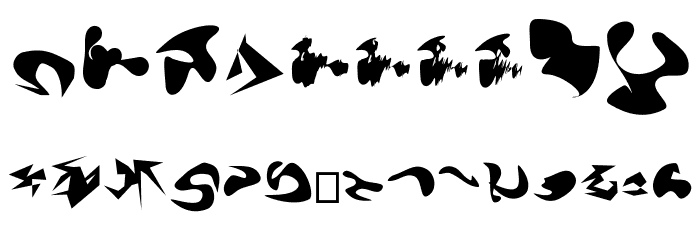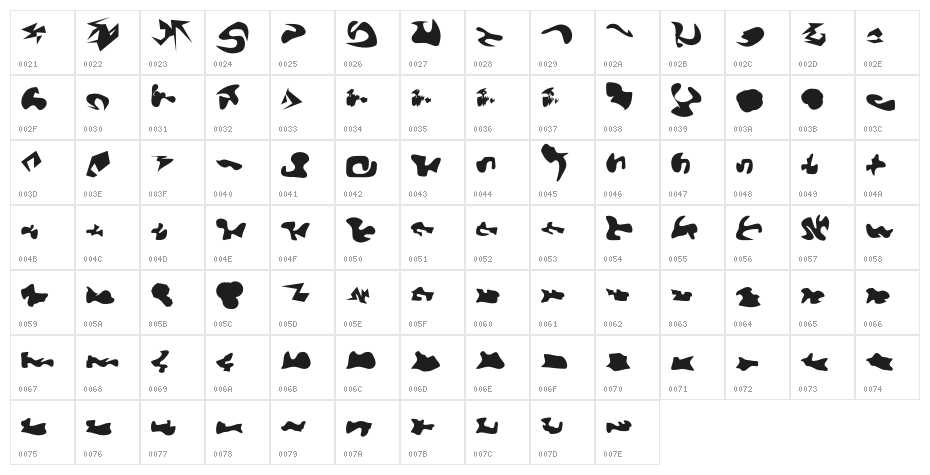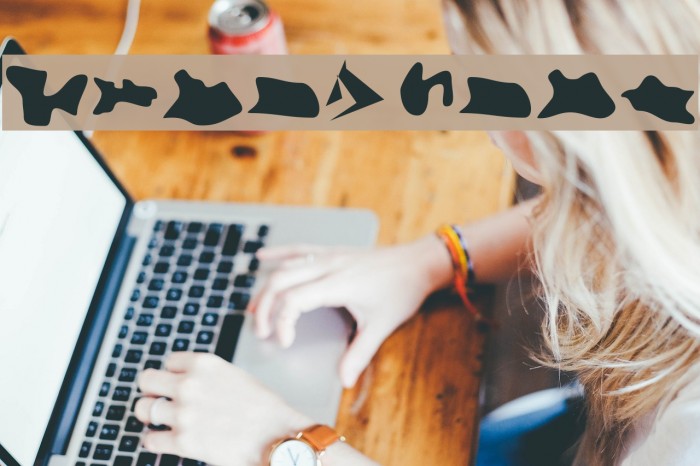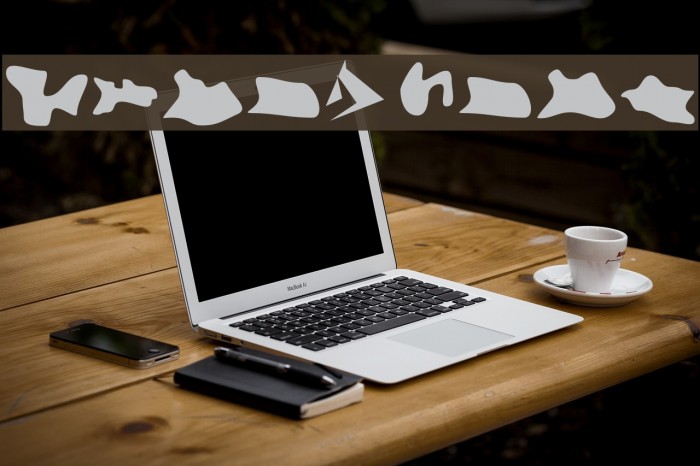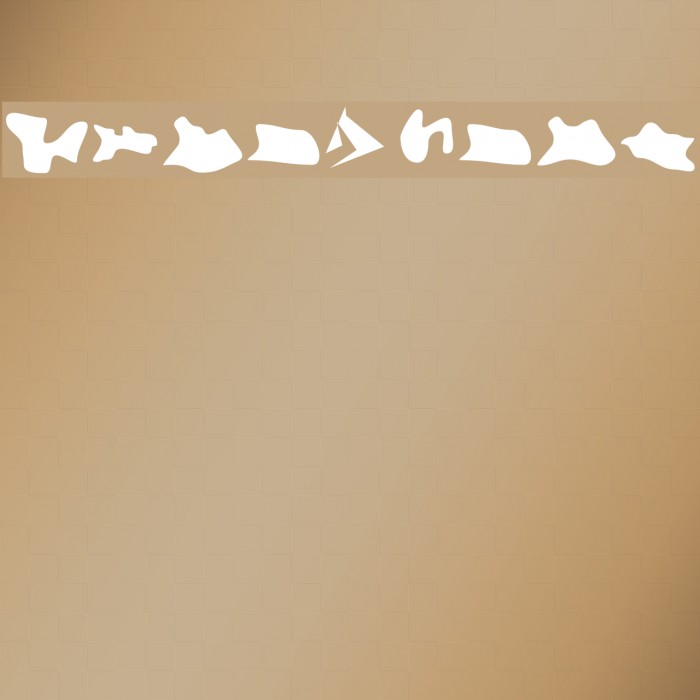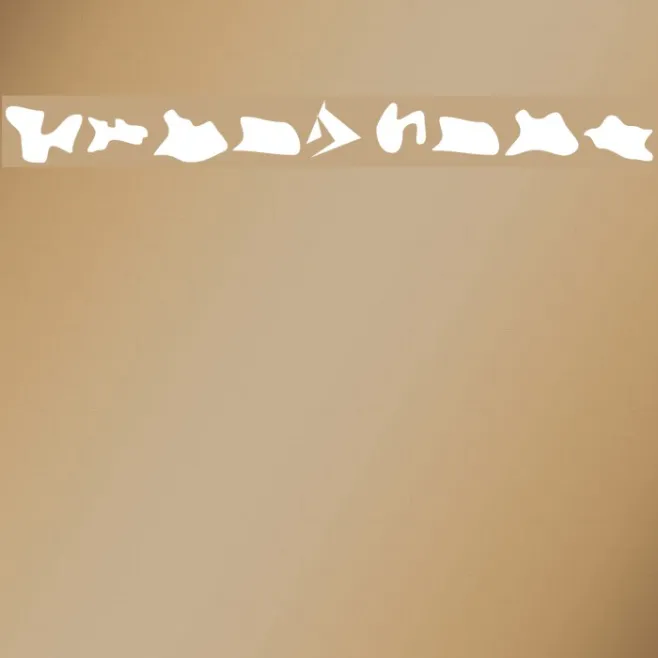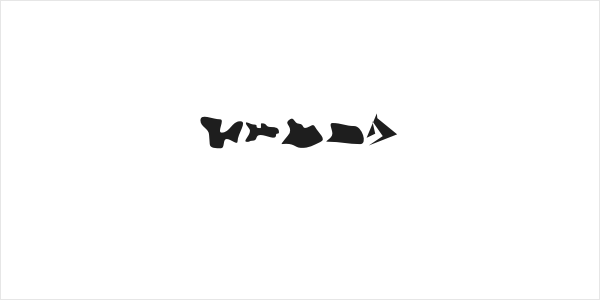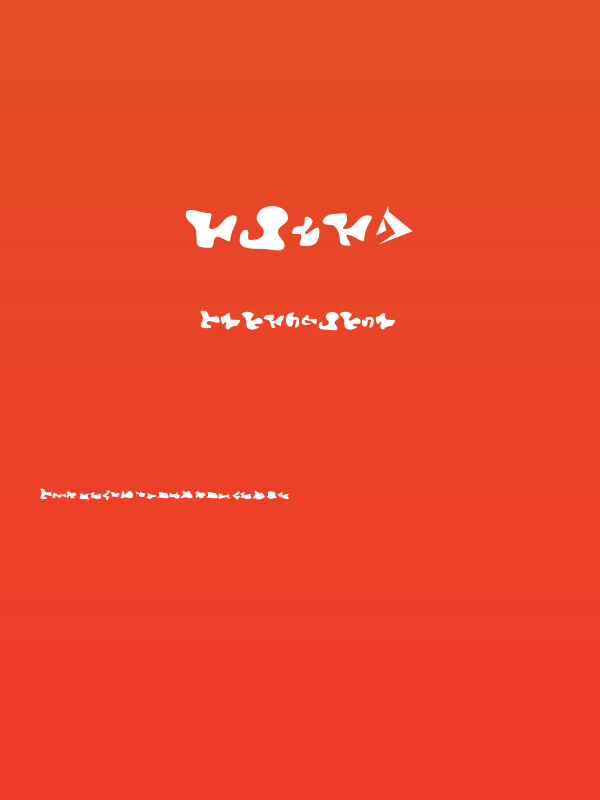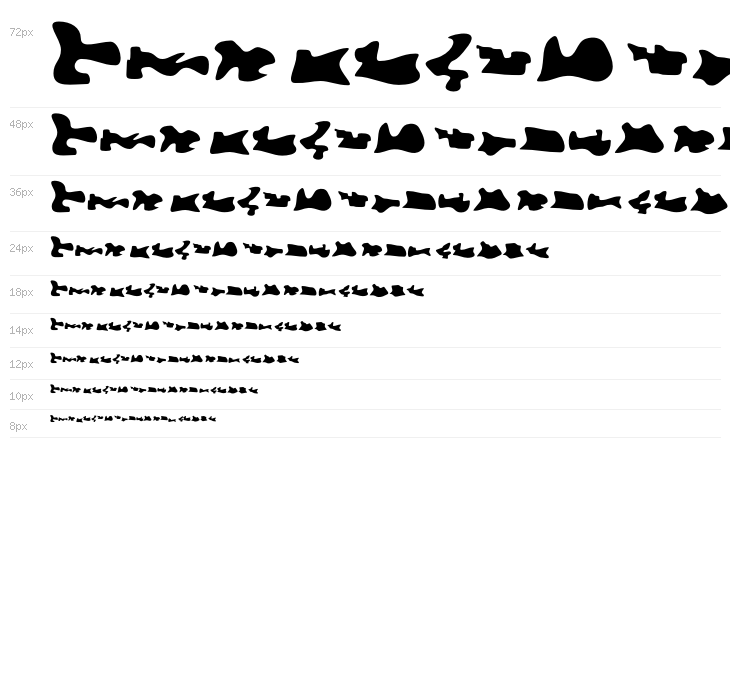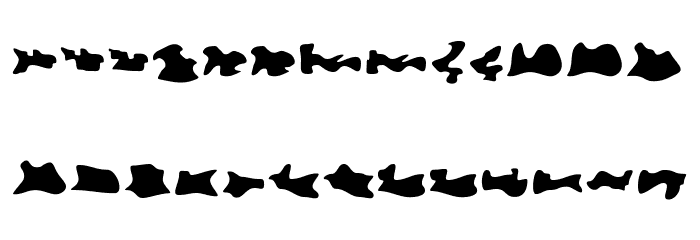
Camo3 Font
Camo3 Description
This font features an abstract and highly stylized design, with characters that resemble organic, fluid shapes. The letters are bold and have a unique, artistic flair, making them stand out with their irregular and dynamic forms. The overall appearance is reminiscent of camouflage patterns, with each character exhibiting a distinct, flowing contour. This font is not suitable for body text due to its complexity and decorative nature, but it is ideal for creative projects that require a strong visual impact.
| Use Case | Logos, Posters, Artistic Designs |
| Proposed Projects | Ideal for artistic posters, album covers, or branding that requires a bold, unique aesthetic. |